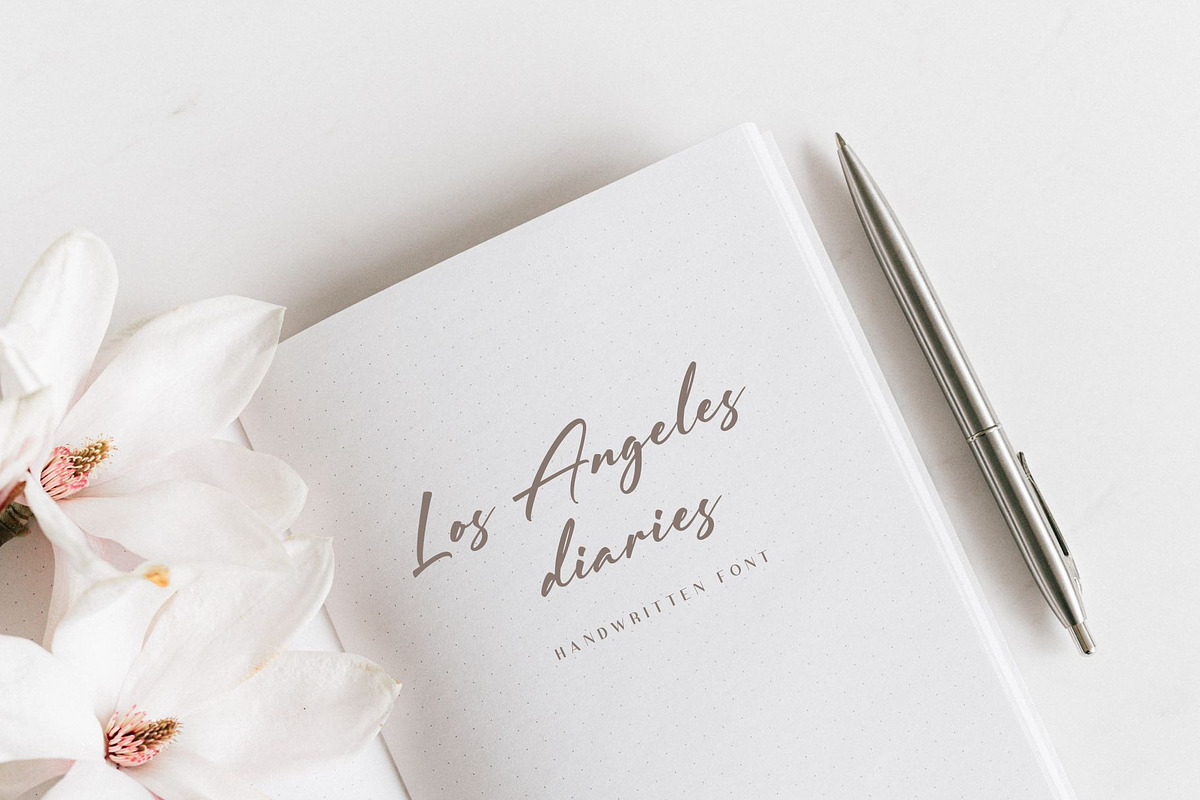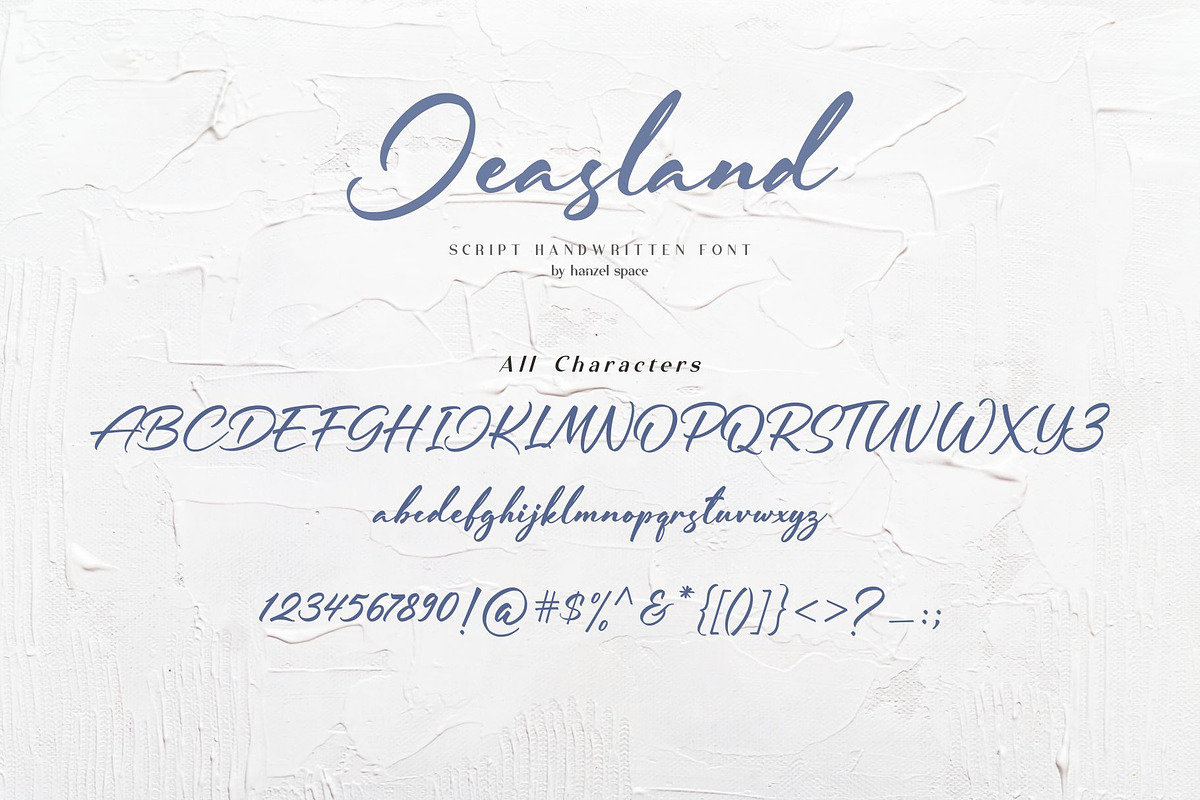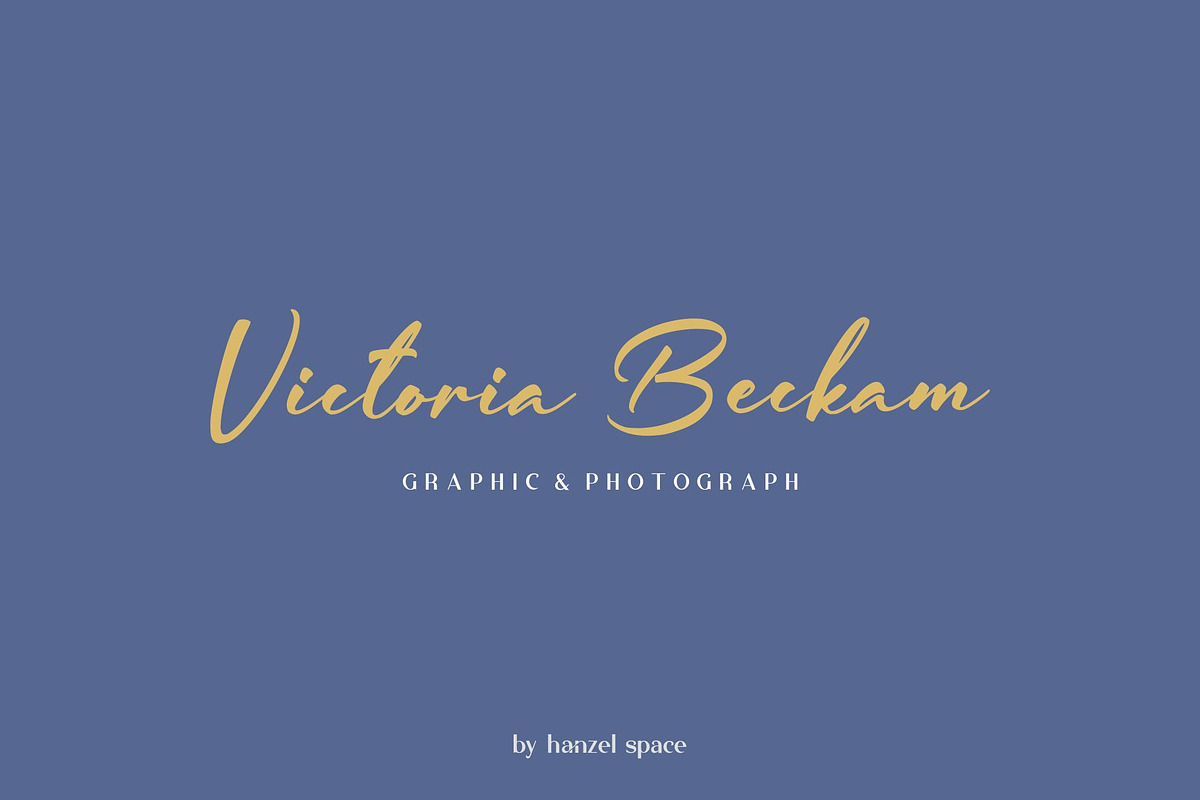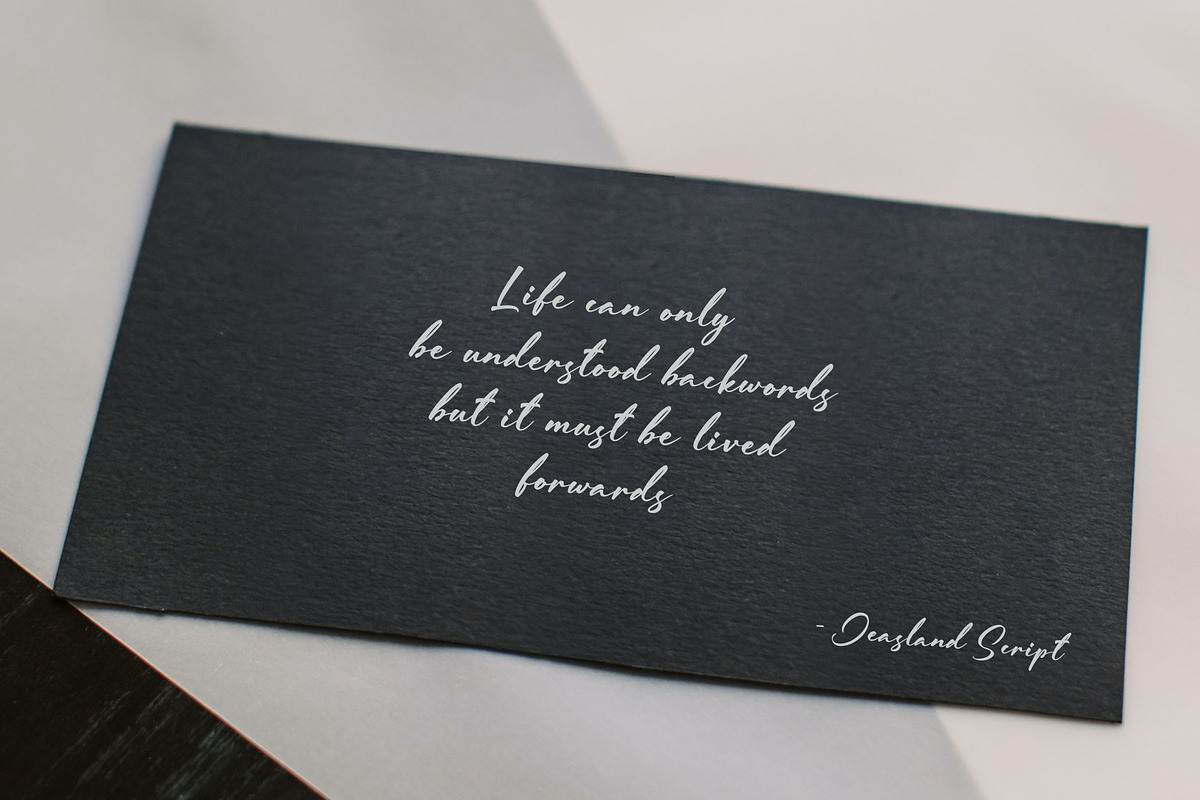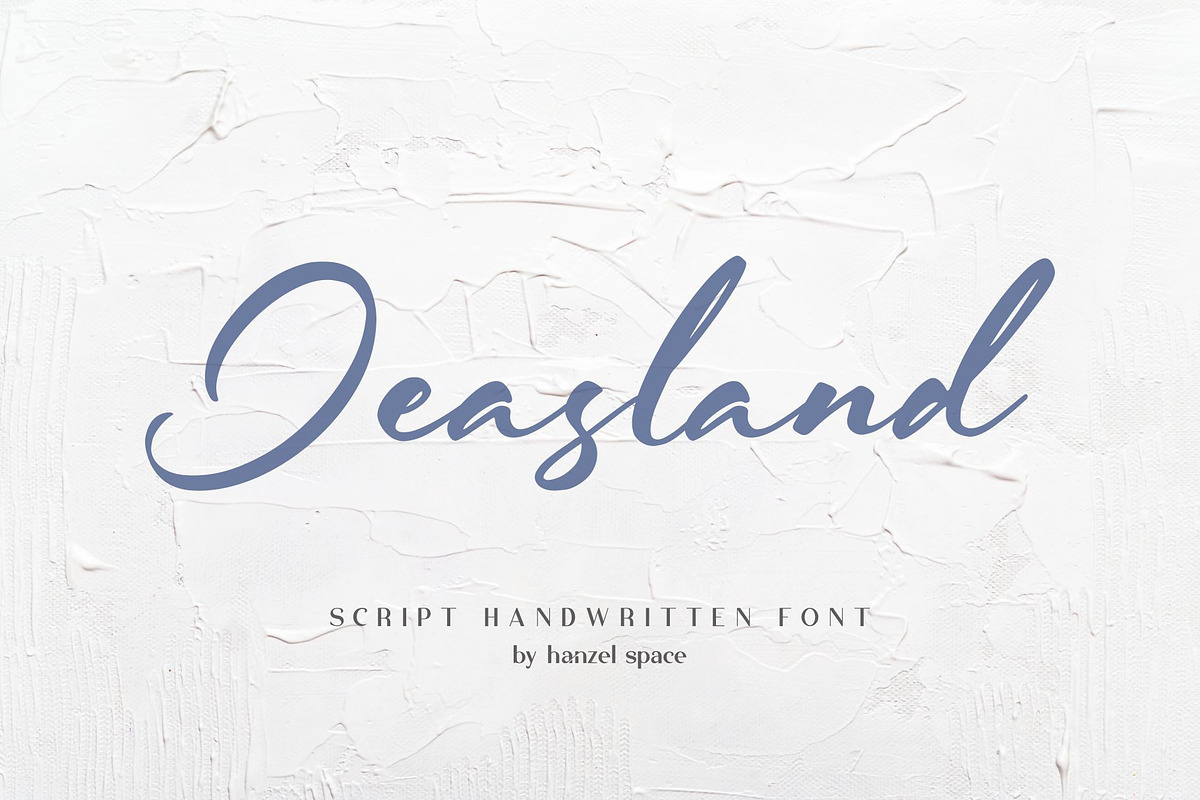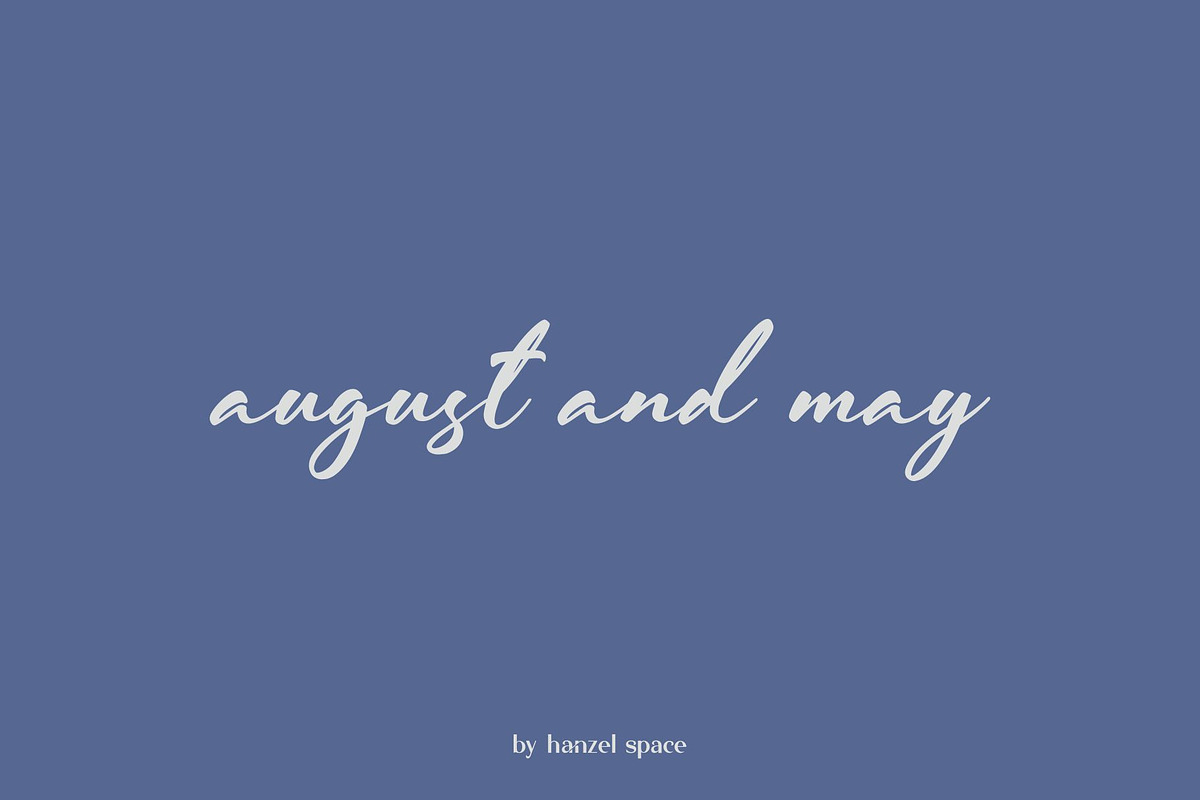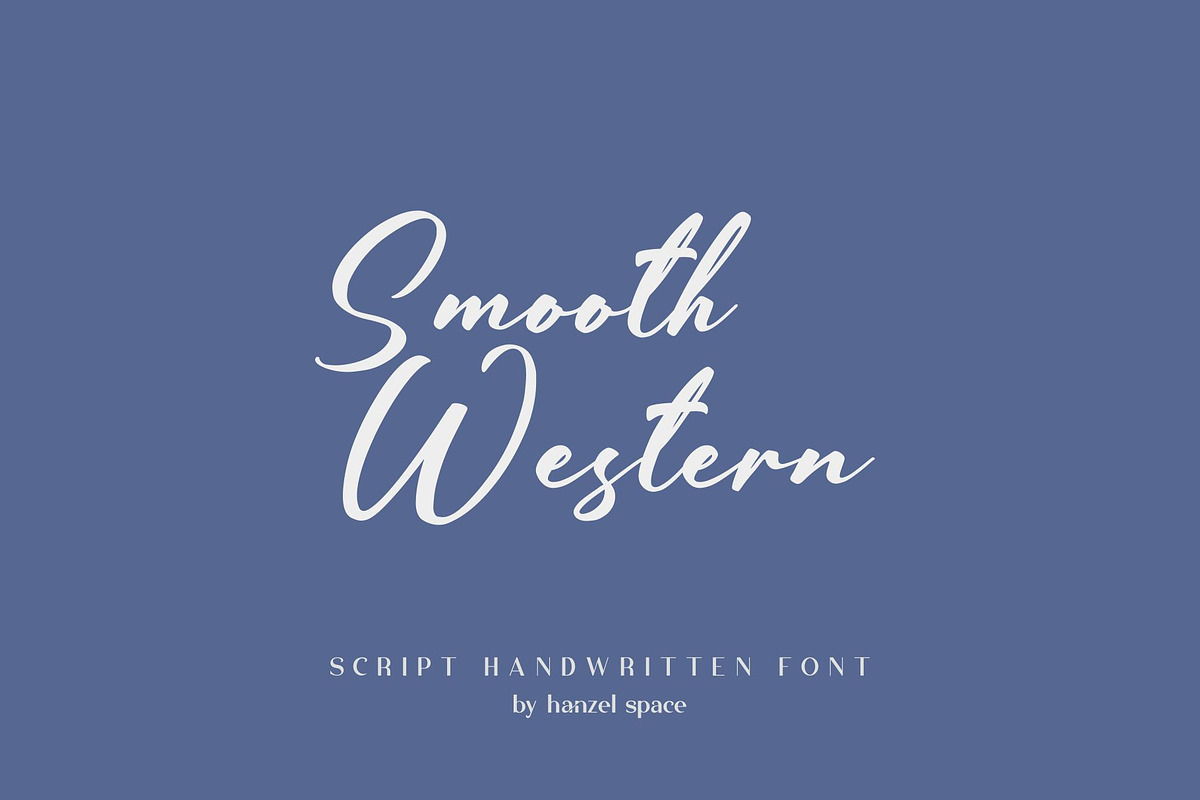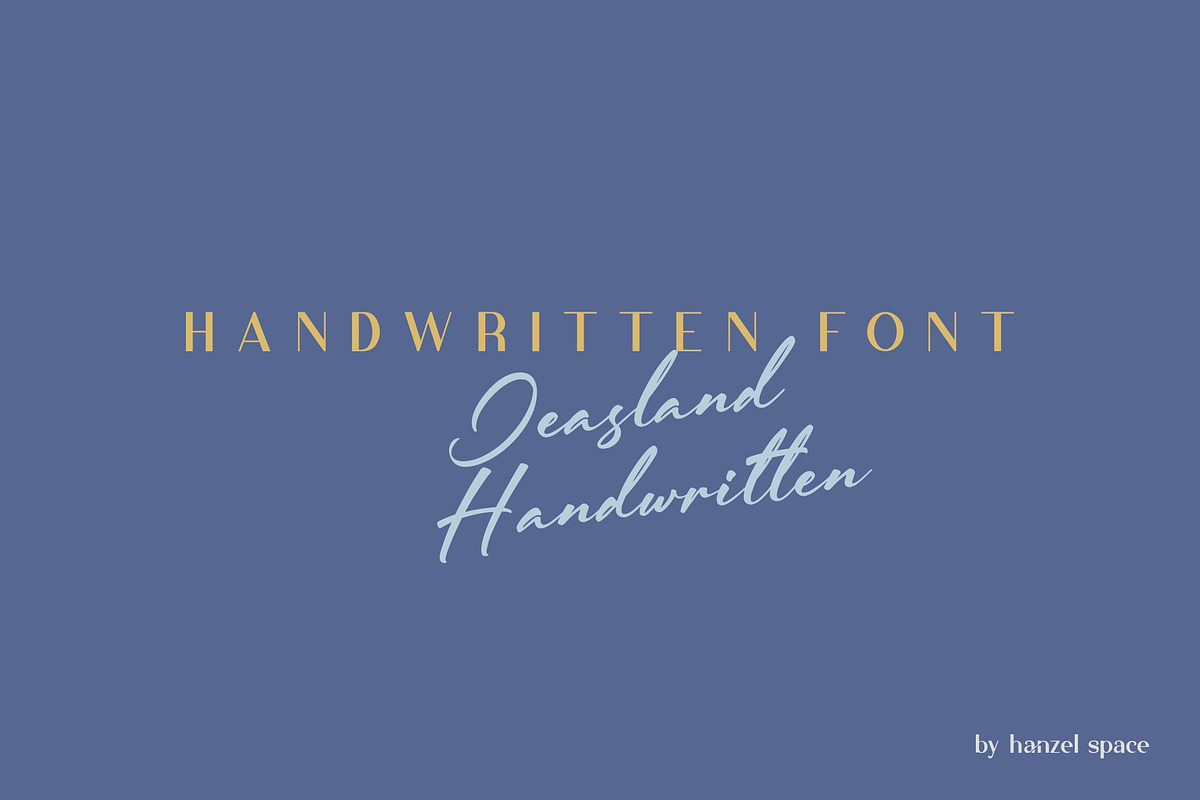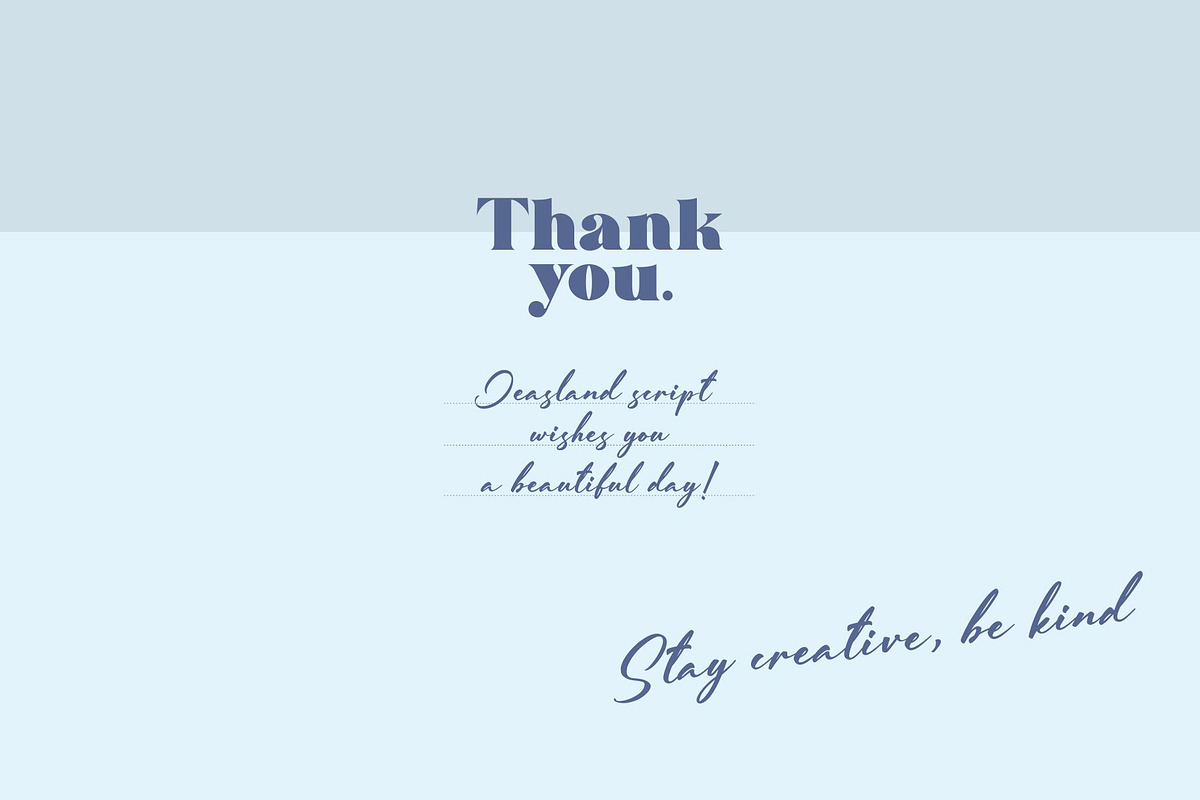
Jeasland Script
Jeasland is a font script that I made for your needs and is easy to read so it is comfortable to wear, you can use it as a logo, badge, badge, packaging, title, poster, t-shirt / clothing, greeting cards, business cards, and wedding invitations and many again. Flowing characters are ideal for making interesting messages according to your taste.